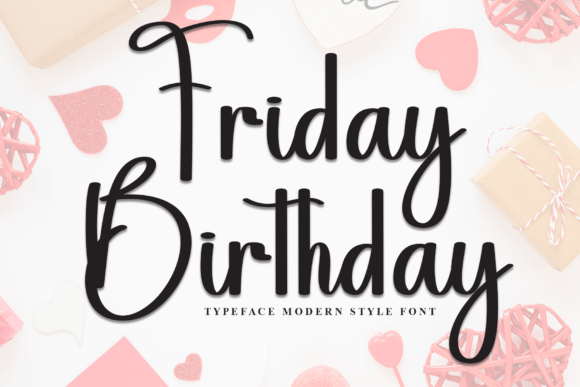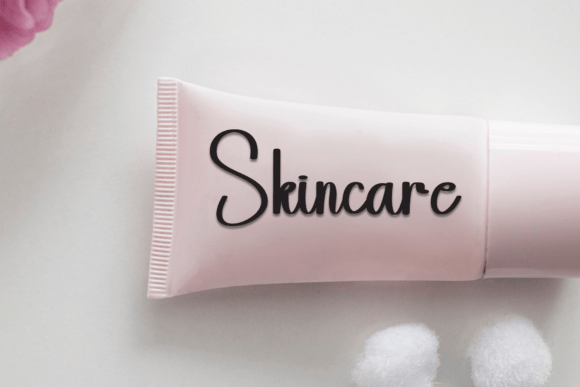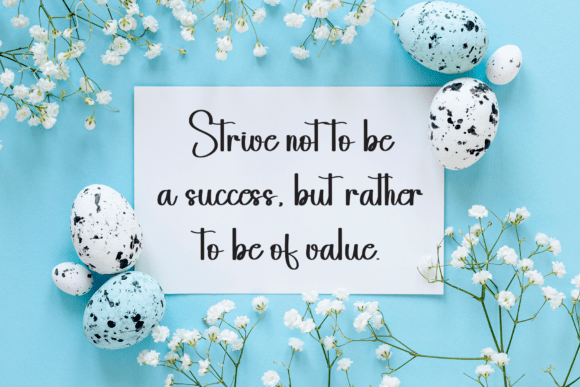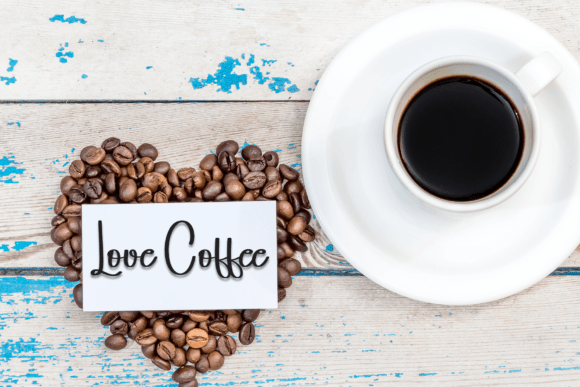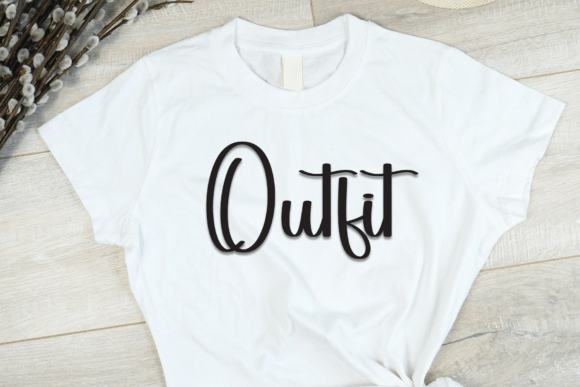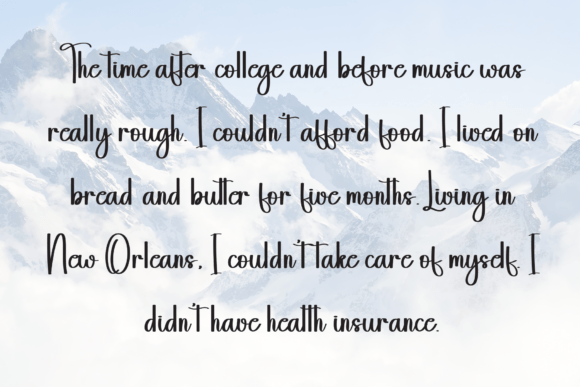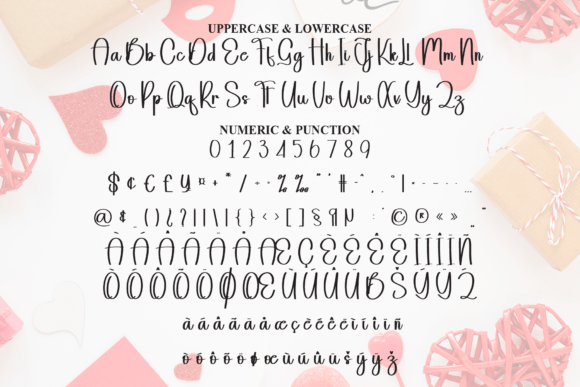
Unleashing Creativity: The Power of Hand-Drawn Typography
As a designer, have you ever been stuck in a creative rut, searching for the perfect font to elevate your project? Perhaps you’ve poured over countless options, only to settle for something that just doesn’t quite feel right. Well, put down the search bar and take a deep breath – help is on the way.
Enter the Friday Birthday Font, a stylish script font that embodies the essence of hand-painted calligraphy with a modern twist. With its fluid brush strokes, dynamic curves, and expressive letterforms, this font is the perfect solution for designers looking to add a touch of sophistication and creativity to their work.
Whether you’re crafting logos, invitations, or social media graphics, the Friday Birthday Font delivers both visual impact and versatility, making it an invaluable addition to any designer’s toolkit.
Key Features of Friday Birthday Font
- Unique Characteristics: This font features a playful, cursive design with a celebratory feel, perfect for birthday invitations, greeting cards, and other special occasion graphics.
Designer Review: Friday Birthday Font
Overall, I think the Friday Birthday Font is a solid, if not entirely groundbreaking, addition to the font family. Here are a few things that work well:
- ✨ The playful, cursive feel of the font is perfect for titles and headings in birthday invitations, party decorations, or any other celebratory context.
- ✨ The font is well-behaved and doesn’t have any major issues with kerning or spacing.
- ✨ It’s available in a variety of weights, from light to bold, which gives designers some flexibility when choosing the right level of emphasis.
However, there are a few limitations that prevent me from giving it a glowing review:
- ⚠️ The font is a bit too whimsical for some uses. While it’s perfect for birthday parties, it may not be suitable for more formal or corporate contexts.
- ⚠️ Some of the characters may not be as refined as others, particularly the numerals and punctuation marks.
Overall, I think the Friday Birthday Font is a fun and creative choice for designers looking to add some personality to their projects. While it’s not without its limitations, it’s a solid choice for the right use cases.
The Friday Birthday Font is perfect for creating fun and playful designs for birthday celebrations. Use it to:
- Create birthday invitations and cards.
- Add a pop of color and personality to your social media posts.
- Design custom birthday party decorations and accessories.